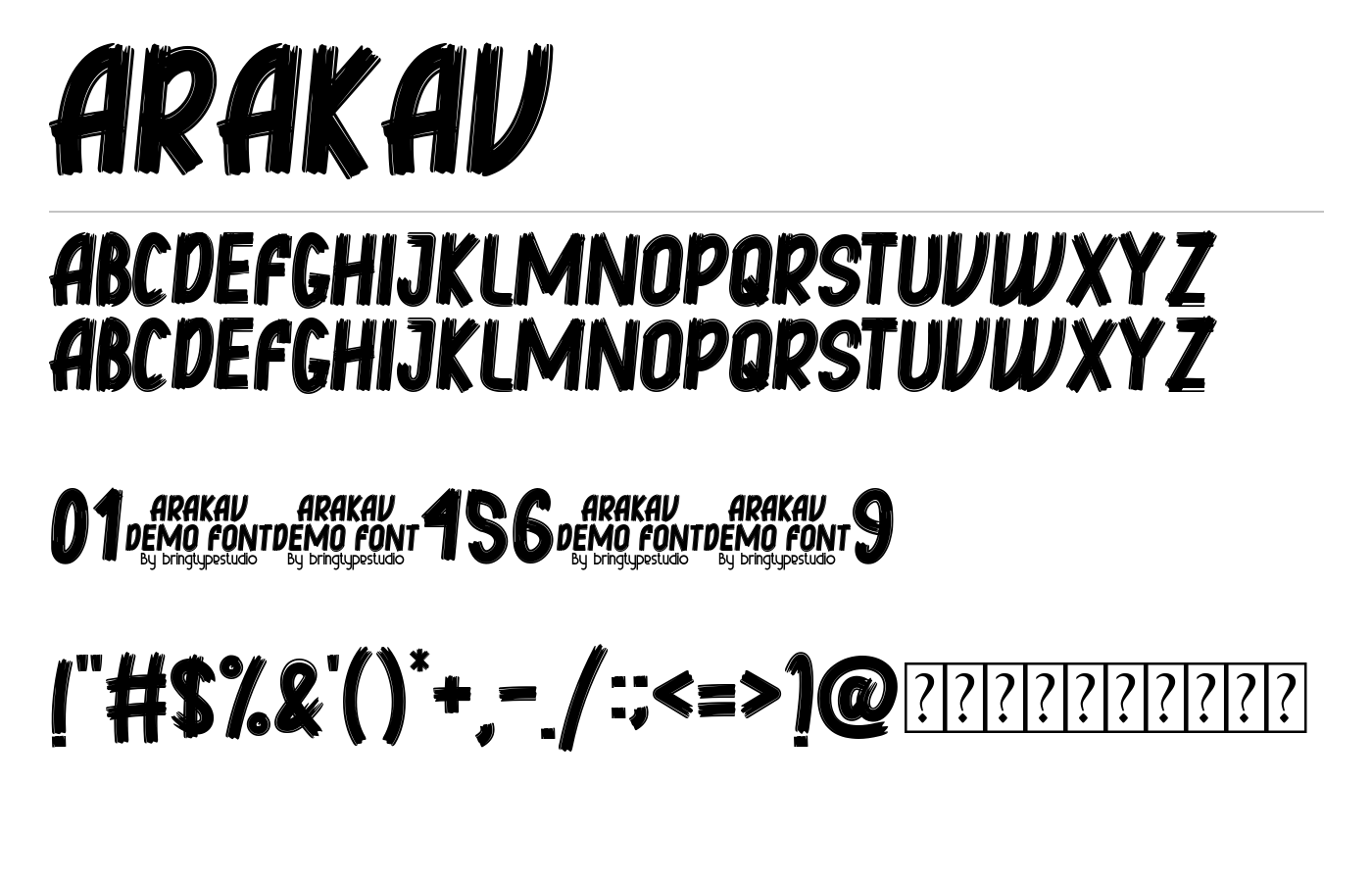
Arakav is a bold, playful sans serif font with a hand-drawn brushstroke style that gives it a lively and energetic feel. Its condensed letterforms, high x-height, and uneven edges create a dynamic look perfect for eye-catching headlines, posters, or casual branding where personality and approachability are key. This font works especially well for creative, informal projects seeking a fun yet strong visual impact.
Arakav Font
About Arakav Font
| Font family | Arakav Font |
| Designer | bringtypestudio.co |